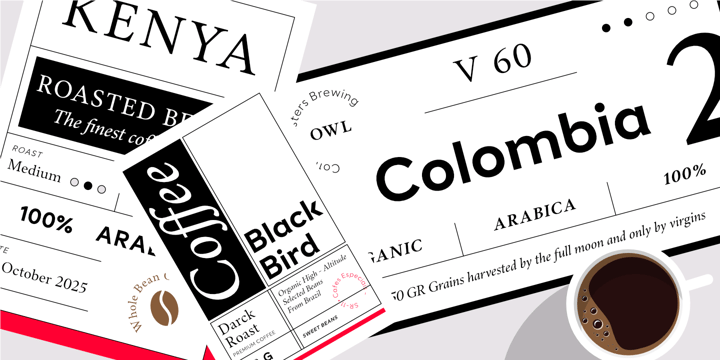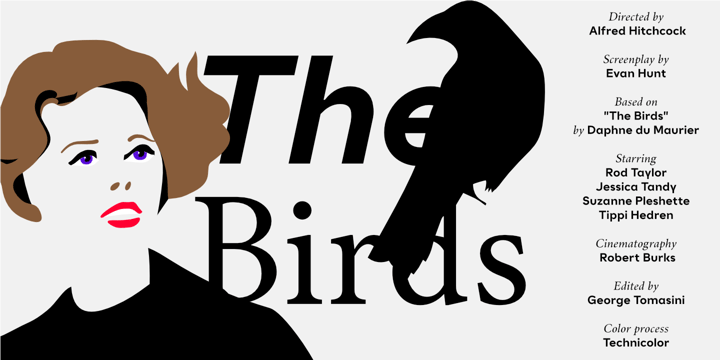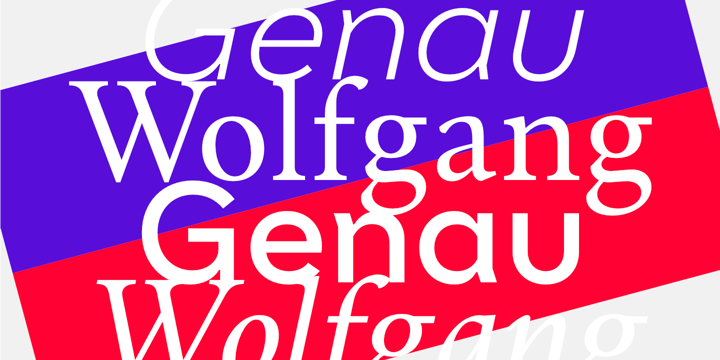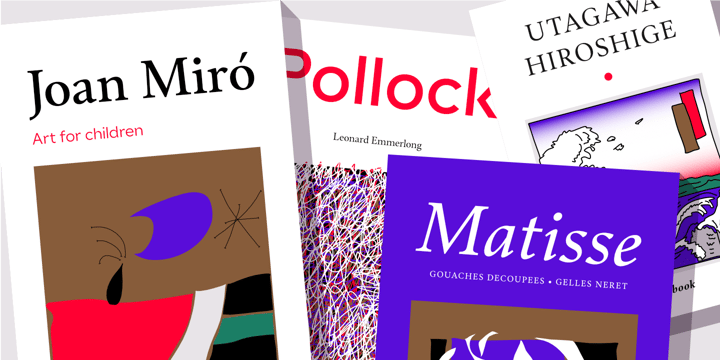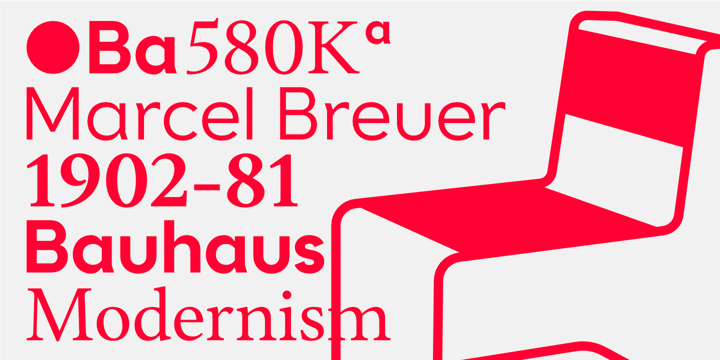
Contemporary classic
This exclusive fonts bundle features two distinctive typefaces that bring both classic elegance and modern simplicity to your design projects. The Wolfgang is reminiscent of Garamond, renowned for its timeless, sophisticated charm, while the Genau evokes the clean, geometric lines of Futura, perfect for a contemporary, minimalist aesthetic. Together, these fonts offer versatile pairing options that can elevate any design from ordinary to extraordinary.
This fonts bundle is a powerful tool for designers seeking to blend tradition with modernity. Whether you're crafting a sophisticated print layout or a sleek digital interface, the pairing of the Wolfgang with the Genau offers endless creative possibilities. The contrast between them creates a dynamic visual tension. Elevate your designs with this perfect marriage of classic and contemporary typography.
Use the Wolfgang typeface for body text or longer passages, while the Genau typeface works well for headlines, subheadings, or call-to-action buttons.
Wolfgang fits perfectly
Print materials: books, invitations, and formal documents
Branding: luxury brands, fashion, and editorial design
Web design: headers and body text for an elegant touch
Genau works well
Digital: websites, apps, and user interfaces
Advertising: posters, flyers, and promotional materials
Branding: tech companies, startups, and contemporary brands